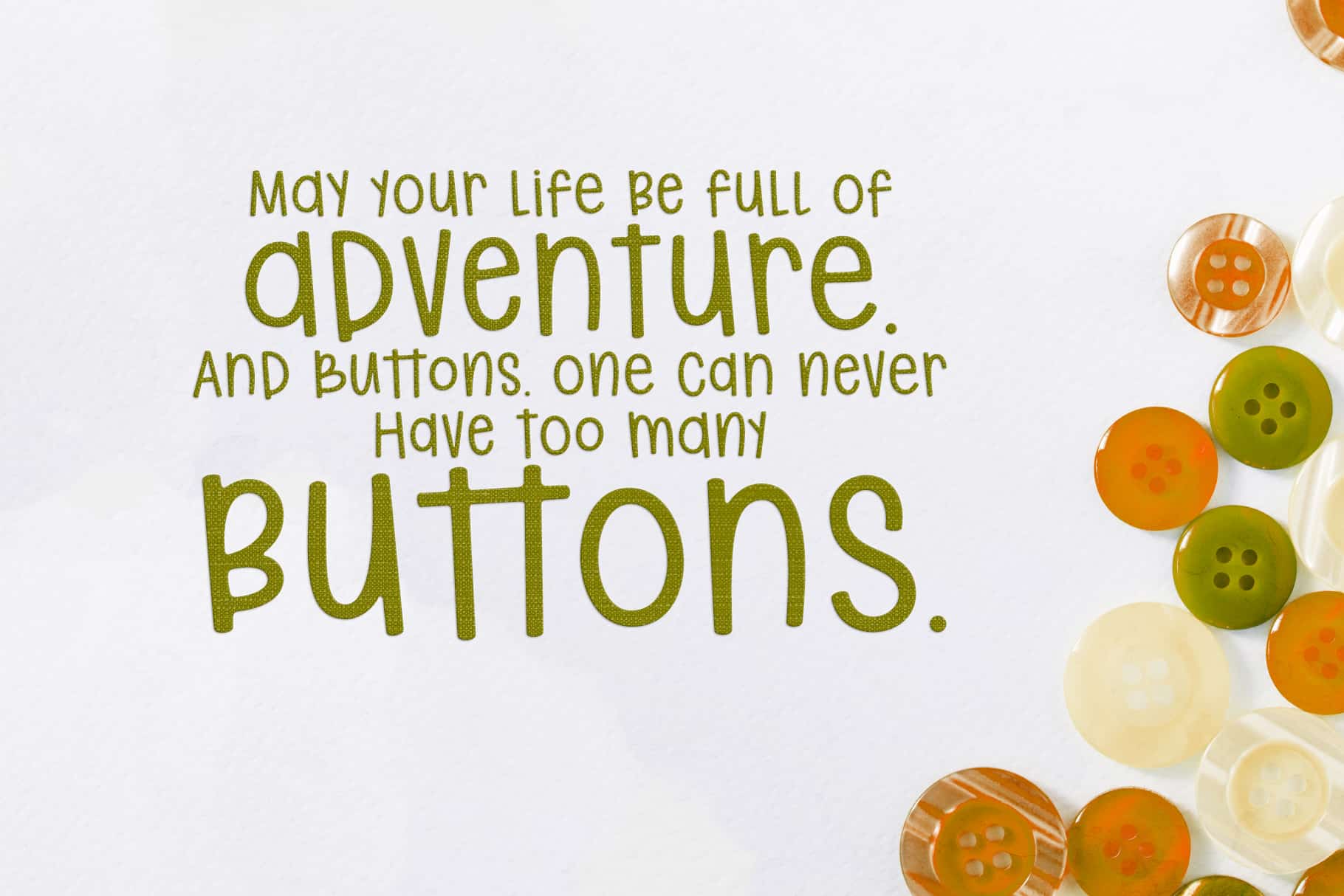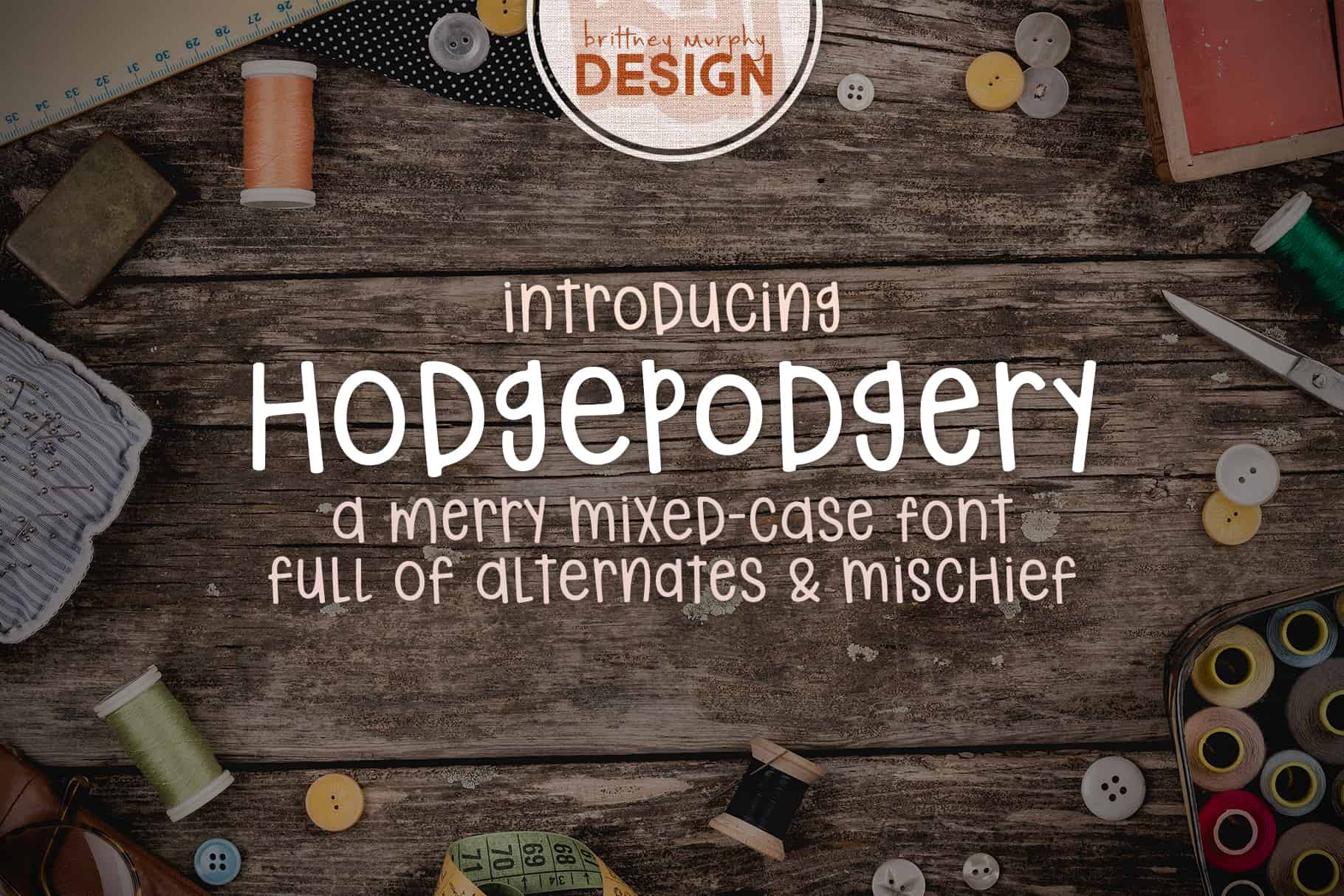
Hodgepodgery
Hodgepodgery is a playful mixed-case font with alternates. Since all the letters are the same height, it works great for multi-line designs!